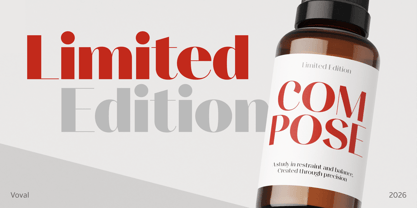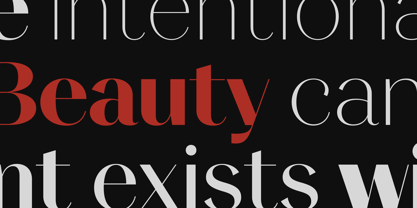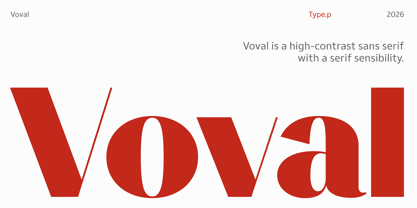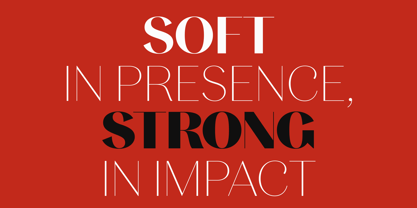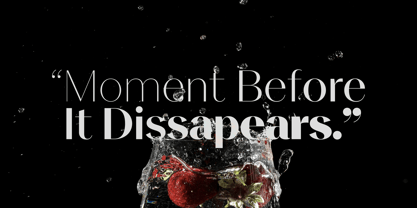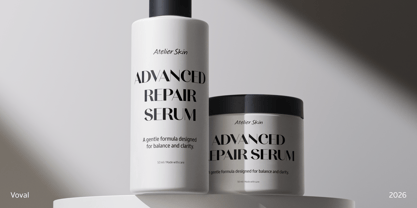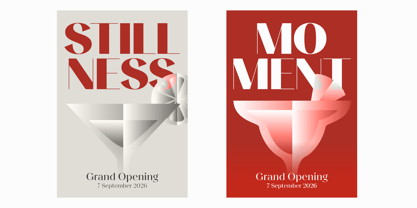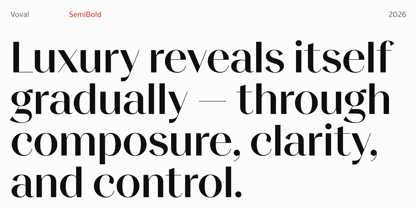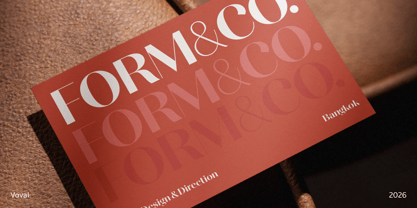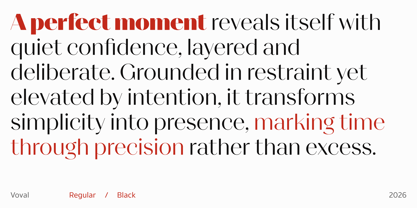
Voval
La familia tipográfica Voval fue diseñada por Parin Rungpattarathakun y publicada por Type.p. Voval contiene 9 estilos y opciones de paquete familiar. Más información sobre esta familia
Voval is a high-contrast sans serif typeface inspired by the structure and elegance of modern serif typography. Rather than mimicking a traditional sans serif, Voval starts from a serif logic — then removes the serifs while keeping the expressive details that normally belong to a serif. The result is a sans serif with a distinctly refined character: sharp contrast, sculpted curves, and endings that feel shaped by a pen. Serifs are cut away, but the calligraphic traces remain — including tapered terminals, controlled stroke modulation, and subtle flared terminals that add refinement without becoming decorative. Voval is designed primarily as a display typeface. It performs best in editorial settings, luxury branding, packaging, and identity systems where typography is expected to carry tone and restraint. The high contrast gives it presence, while the overall construction keeps it composed and legible at larger sizes. Across the family, Voval aims for a quiet, controlled voice — not loud, not trendy. It is a typeface built for brands that value clarity, balance, and refinement, where luxury reveals itself gradually through composure and detail.